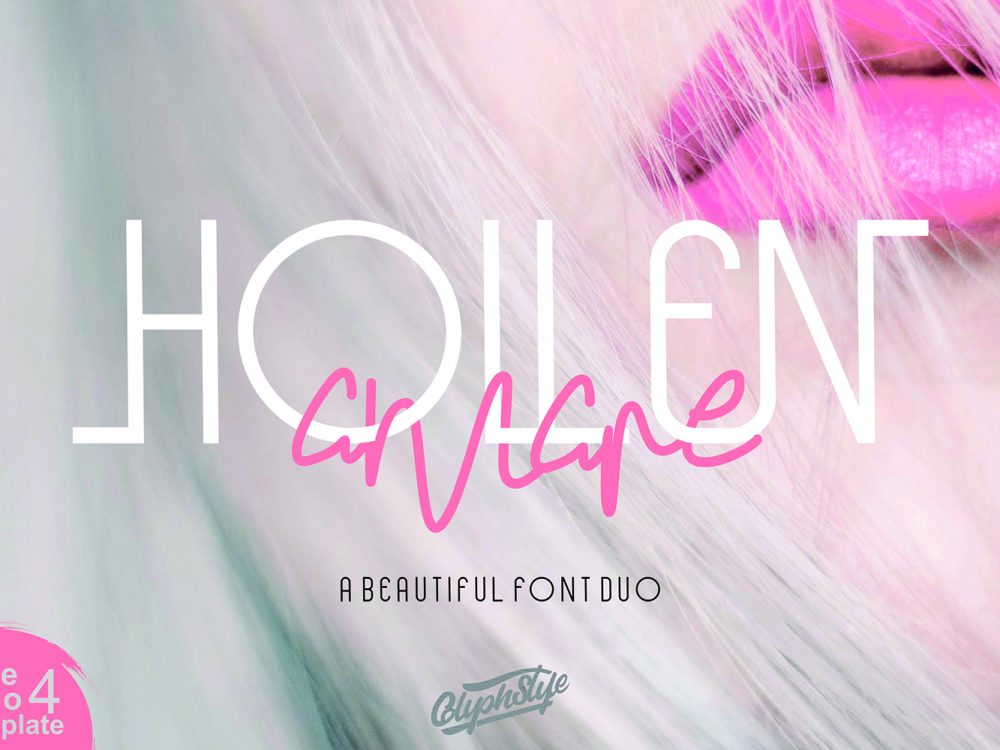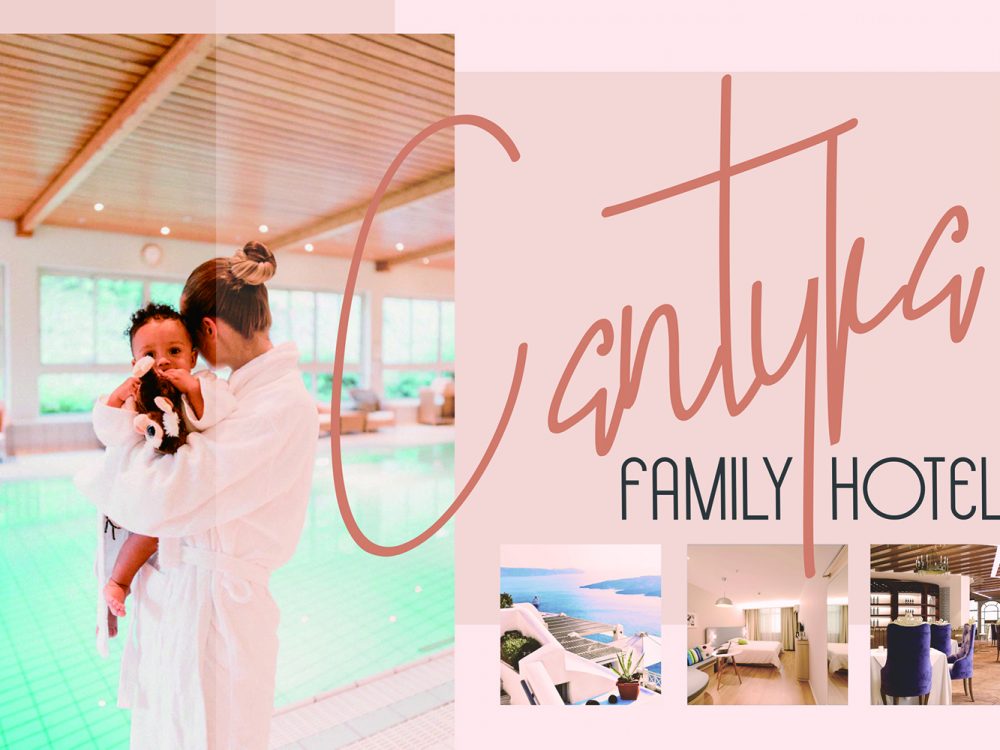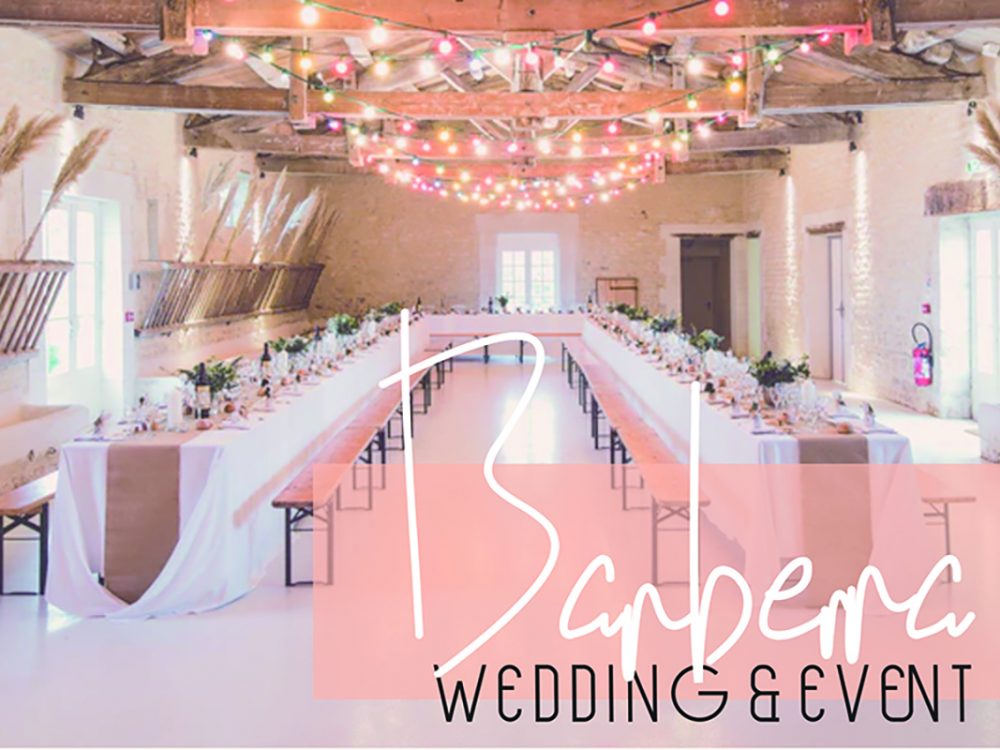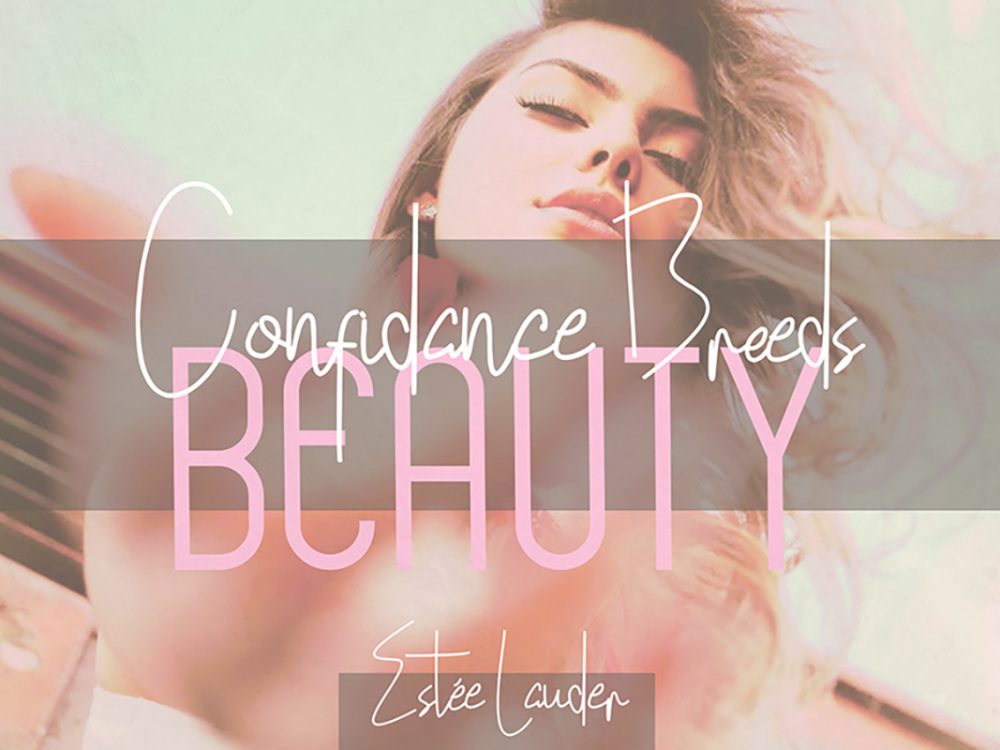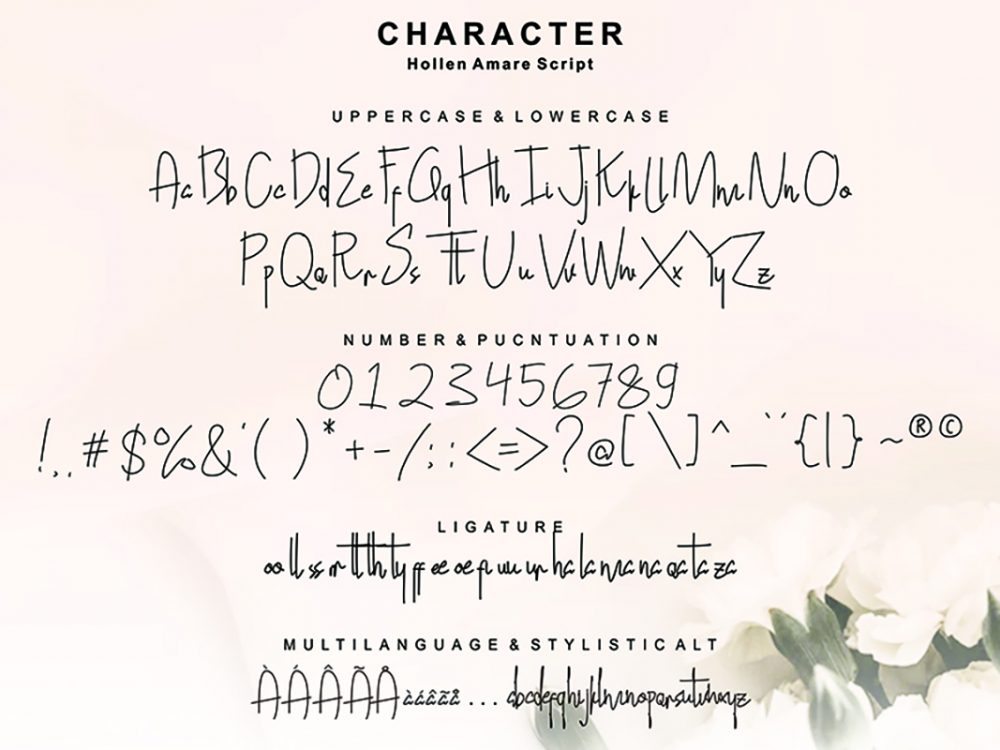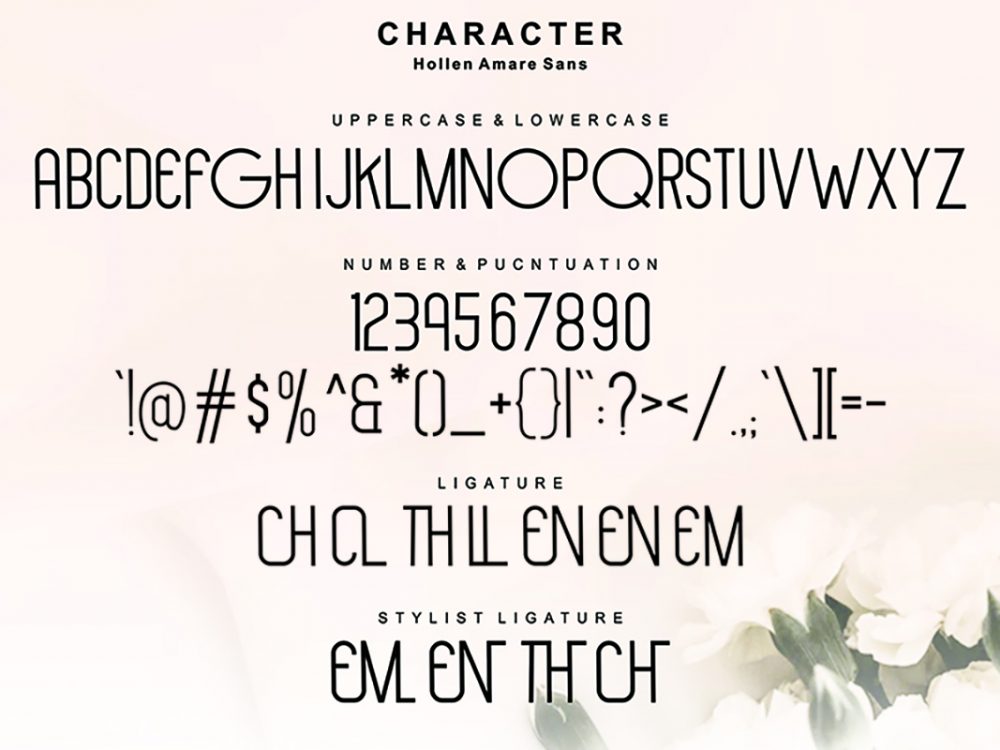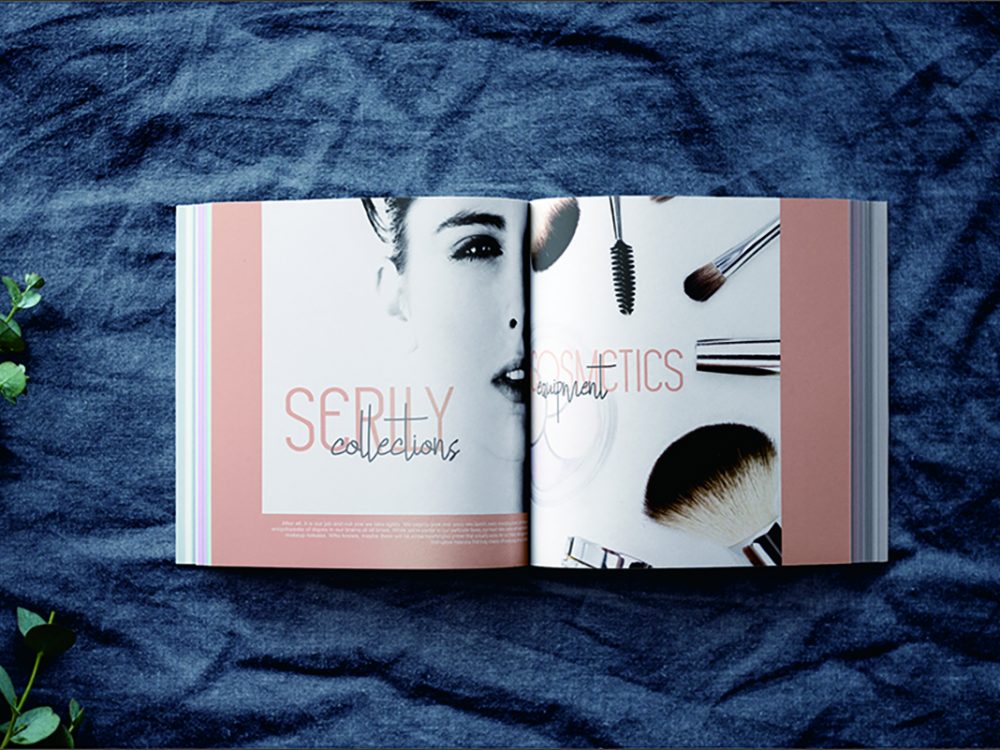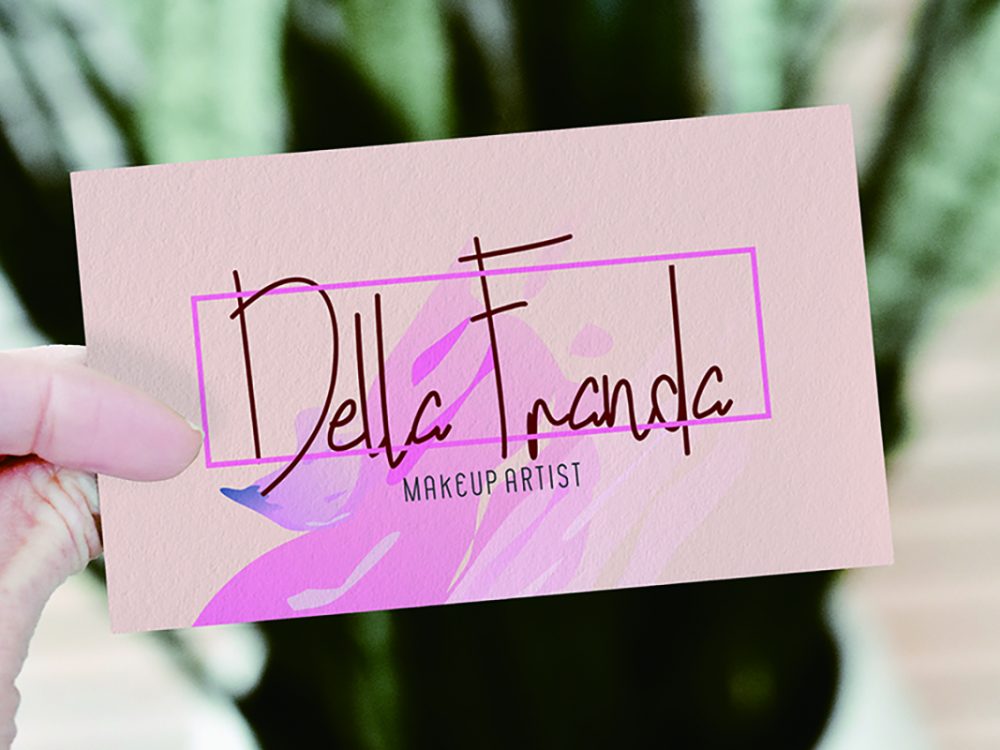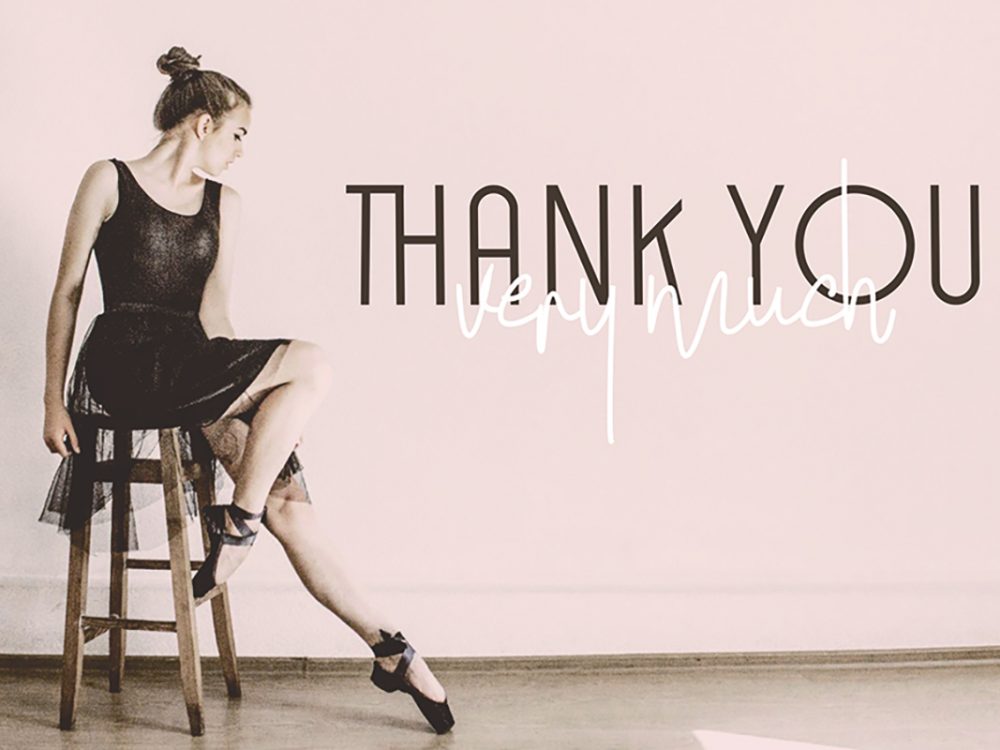
Hollen Amare Font Duo
Hollen Amare Font Duo is two variants of a beautiful and interesting font that has an elegant style and is very suitable for various design projects such as branding, posters, cards, invitations, flyers, prints, and much more. If you wish to access more features and use them for commercial work please buy the full version.